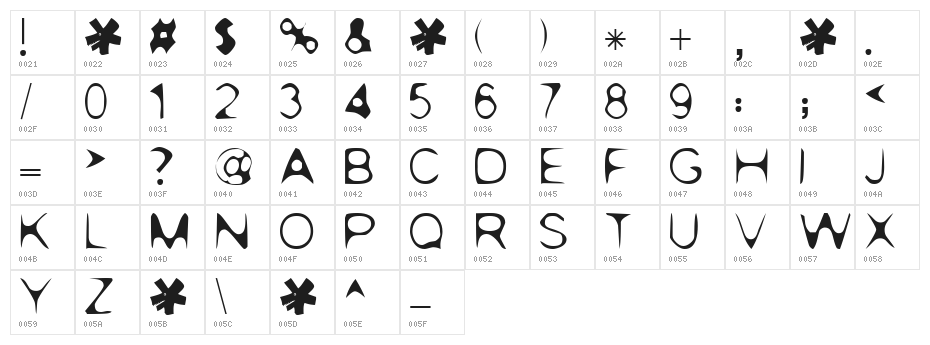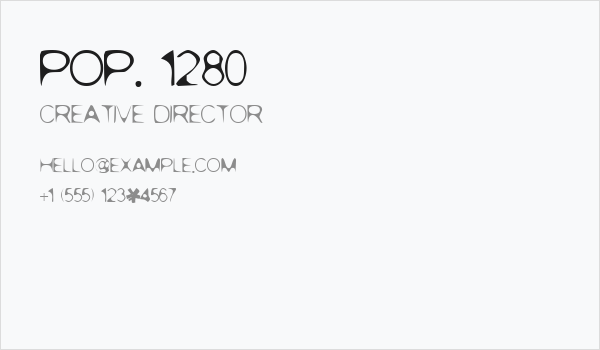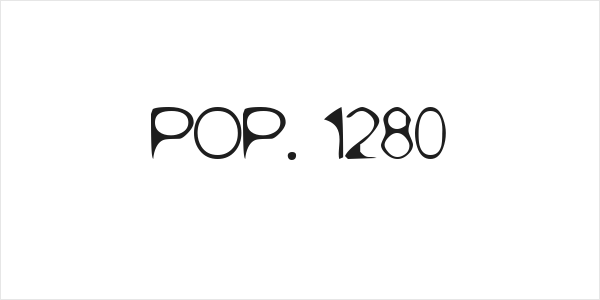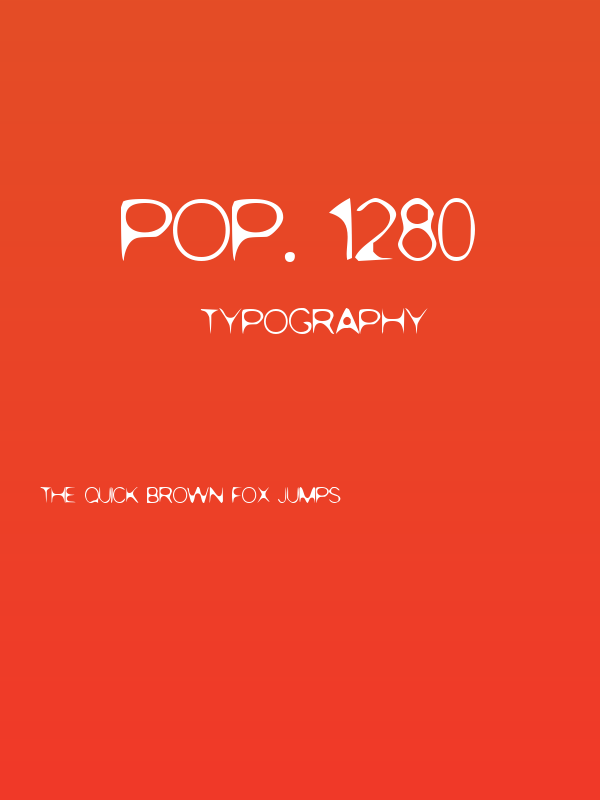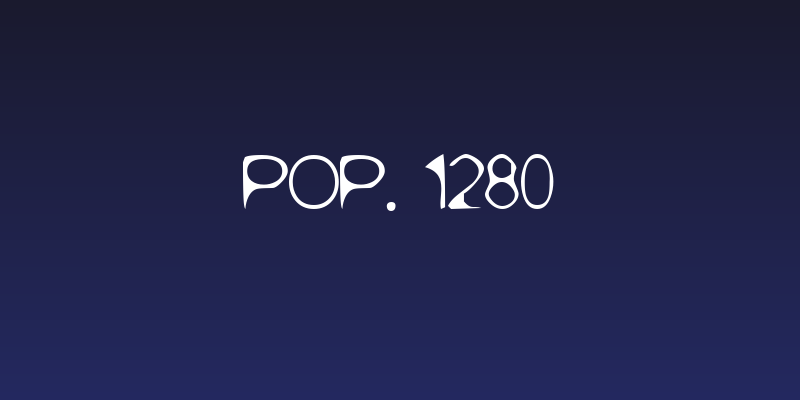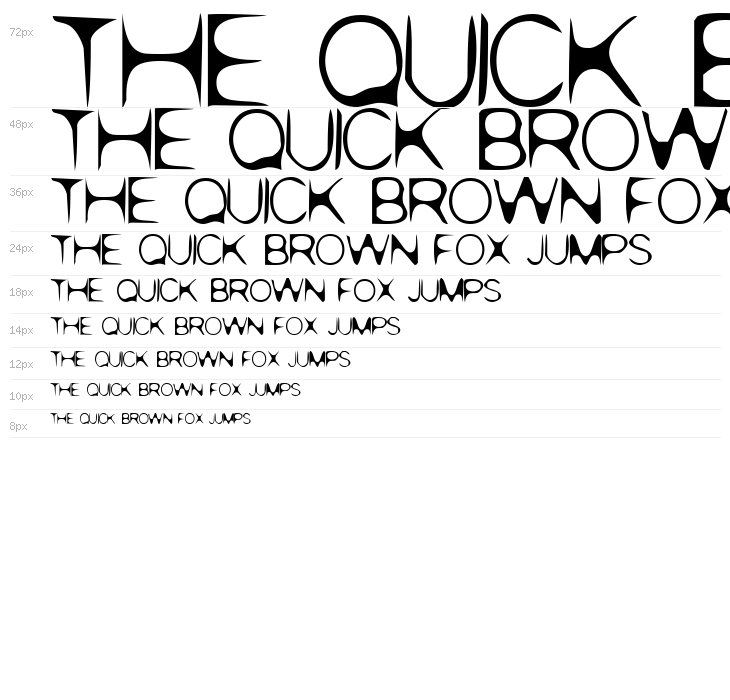
POP. 1280 Font
| Caso d'uso | Logos, Posters, Album Covers |
| Progetti proposti | Ideal for album covers, posters, branding for creative industries, and any project seeking a bold, artistic flair. |
POP. 1280